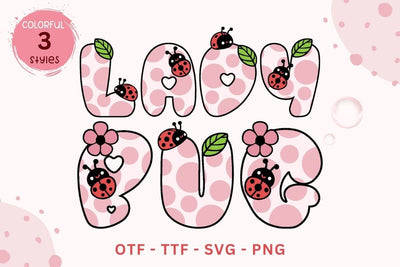
Ladybug - Color Font
"Ladybug Font" is a charming and playful typeface, ideal for crafting an enchanting and whimsical atmosphere in your designs. This font has 3 styles and features adorable, rounded characters adorned with pink polka dots, bringing a soft, youthful vibe. Each letter is uniquely decorated with cute elements like ladybugs, green leaves, and tiny flowers, enhancing its vibrant and cheerful aesthetic. The contrast between the vivid black and red of the ladybugs and the delicate pink backdrop makes this font visually appealing and perfect for projects aimed at children or any design that desires a touch of sweetness and fun.
This font has 3 color sets.